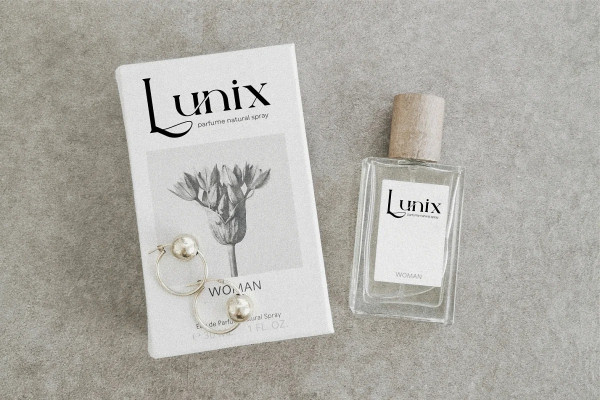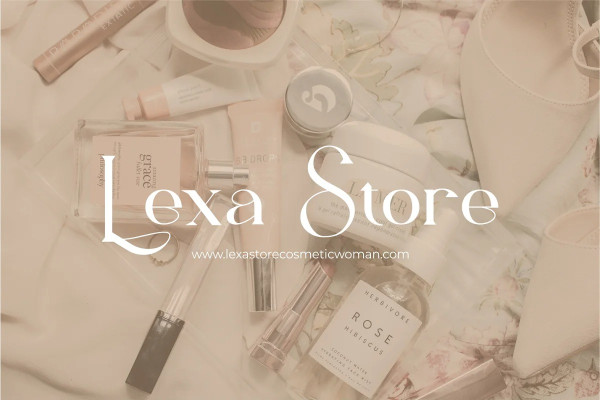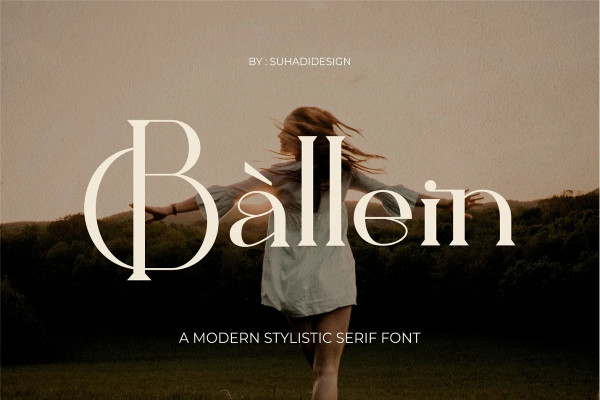
Ballein Font
Ballein Font is a very popular alternate and ligature serif font, comes in a modern style hoping to become a market favorite. We keep this font looking elegant, classy, ​​easy to read, stylish, attractive and easy to use. Ballein Font is a great choice for beauty brands, magazines, newspapers, books, brand names, branding, brands, quotes, album covers and other projects. Ballein fonts are here to take your designs to the next level.